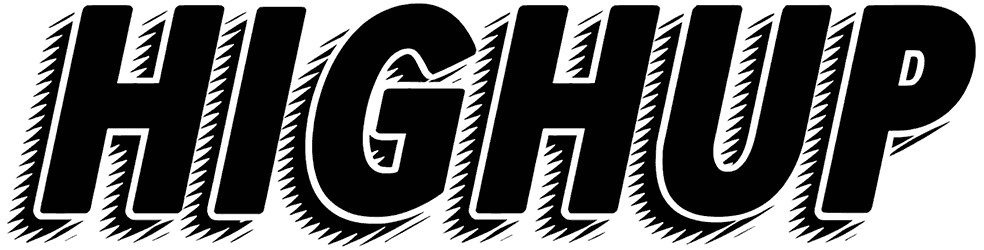
Highup Font
If you want your words to be more catchy than usual, this decorative font can be one of the options on the table. Highup shows a bold, 3D, and italic face that can catch a lot of attention.
Even if it doesn’t cover lowercase, numbers, and most punctuation, this T-shirt font would be a nice pickup for many novel designs, such as titles, covers, wordmarks, or whatnot.
Six layered fonts !